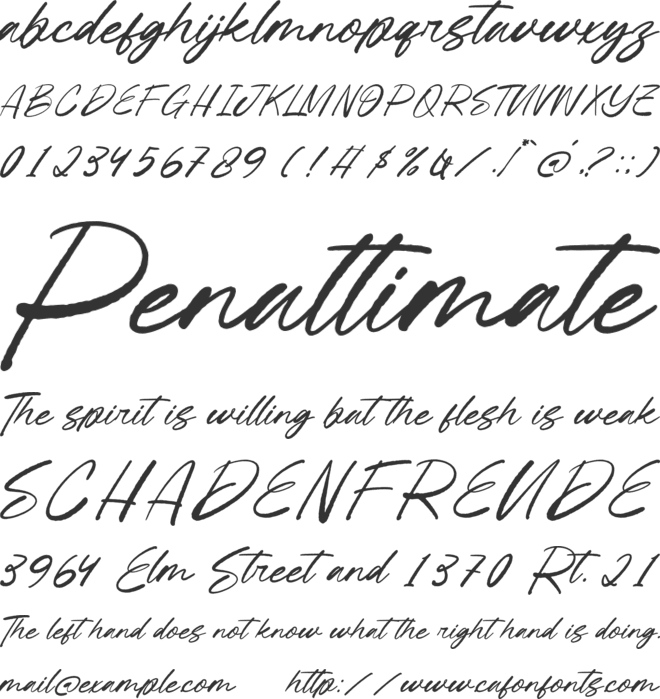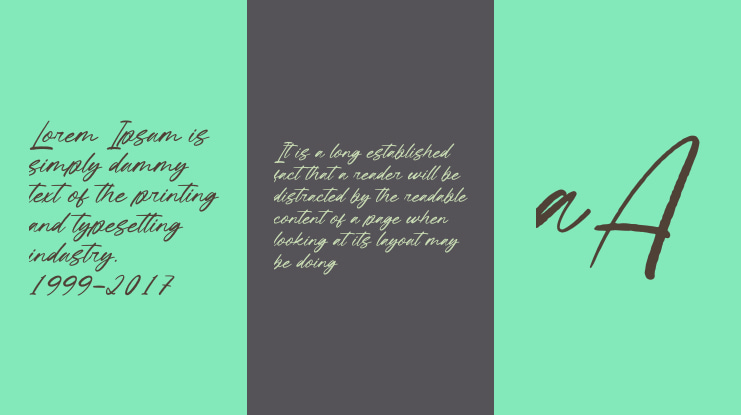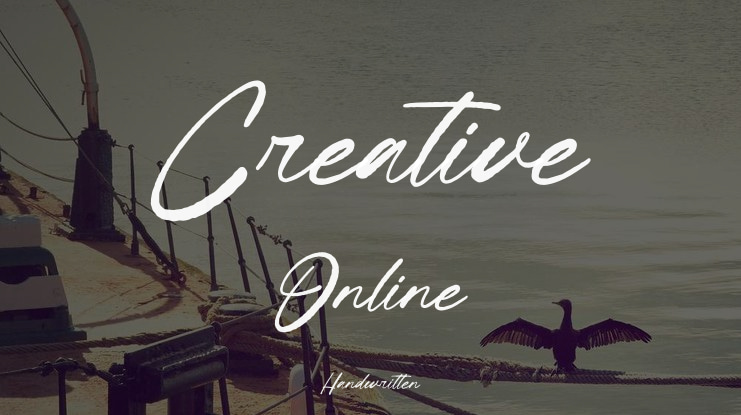
Creative Online - Handwritten Ink
Elevate your visual identity with a touch of authentic human connection using Creative Online - Handwritten Ink. This typeface embodies an organic flow and a hand-drawn aesthetic that instantly bridges the gap between digital precision and artisanal warmth. Featuring expressive strokes and a fluid rhythm, Creative Online - Handwritten Ink is designed to give your text a personal, bespoke feel that resonates with modern audiences seeking authenticity in every brand interaction.
Unlocking limitless creative potential is effortless with a rich library of typographic features integrated into Creative Online - Handwritten Ink. Boasting over 162 ligatures and 07 custom alternates, this font ensures that every word looks naturally penned rather than mechanically repeated. The dynamic movement within the characters provides a high-end finish, making Creative Online - Handwritten Ink a powerhouse for designers who prioritize unique, non-standardized letterforms in their creative toolkit.
Reach a worldwide audience without compromising on style or consistency in your brand communications. With its extensive multilingual support, Creative Online - Handwritten Ink adapts seamlessly across global markets, making it incredibly versatile for international projects. Whether you are targeting local boutiques or launching a worldwide campaign, the robust character set of Creative Online - Handwritten Ink ensures your message remains clear and impactful across various languages and regions.
Transforming concepts into iconic visuals makes this font the premier choice for high-impact design. Creative Online - Handwritten Ink is perfect for luxury branding, packaging design, social media marketing, and editorial layouts where a signature look is required. Its sophisticated ink texture is also ideal for high-end stationery, product tags, and lifestyle photography overlays, ensuring that Creative Online - Handwritten Ink stands out as a timeless asset for any commercial portfolio.